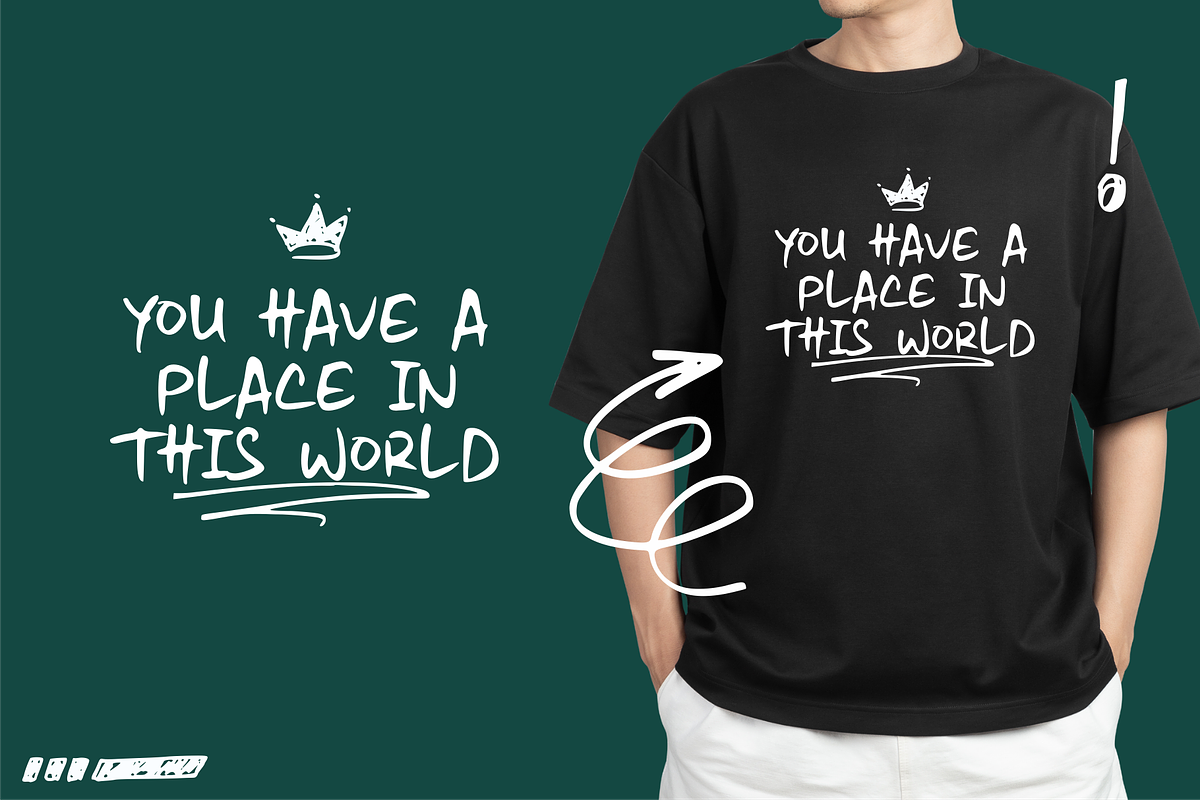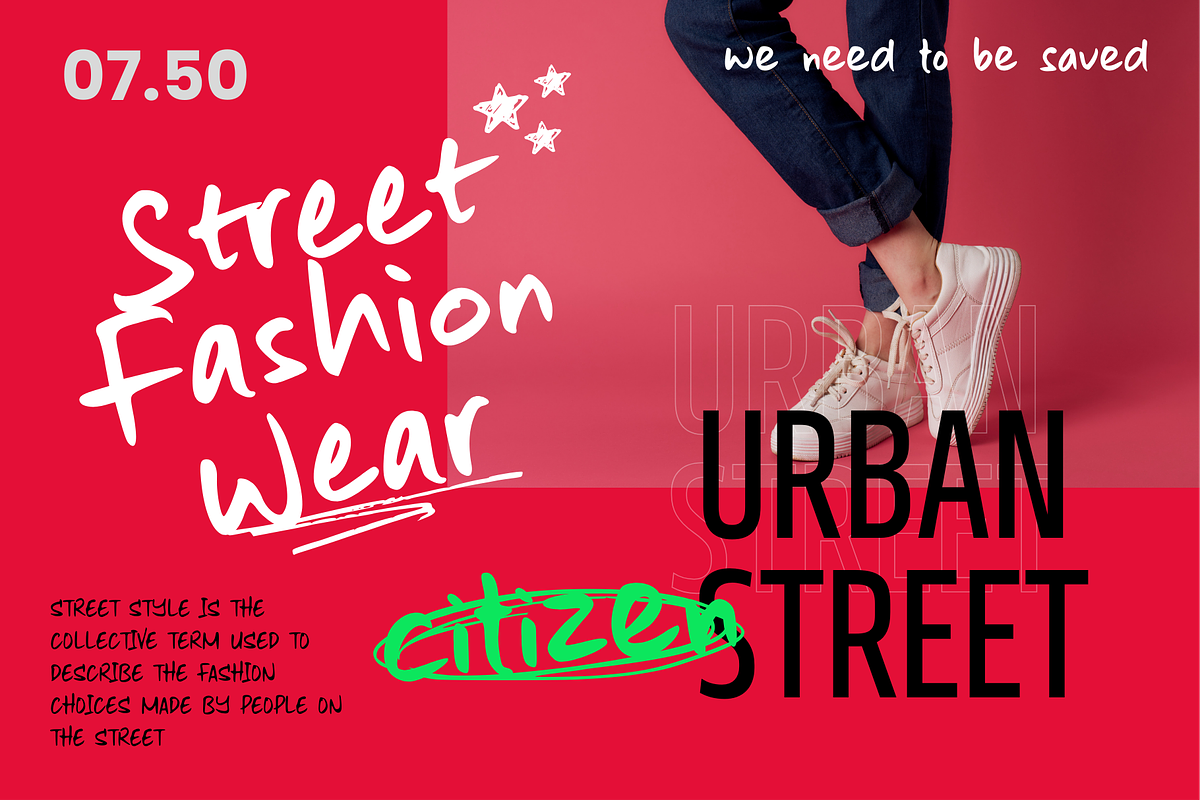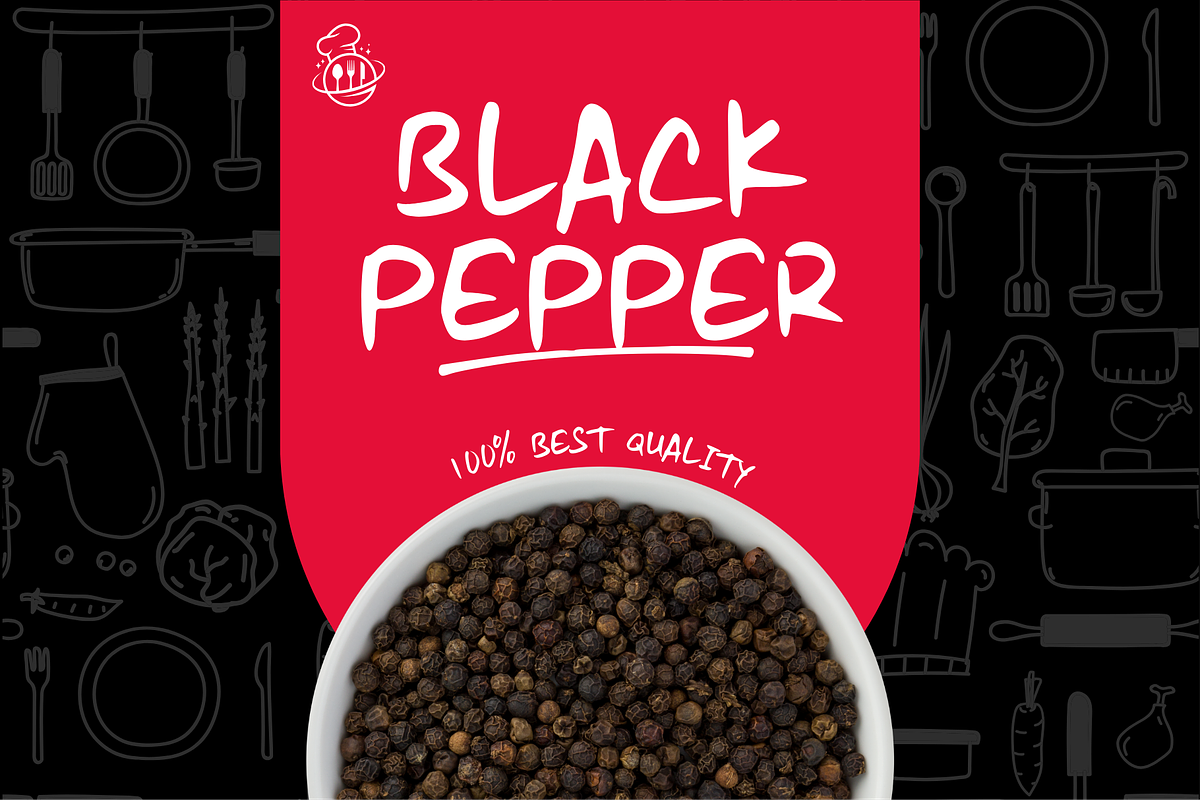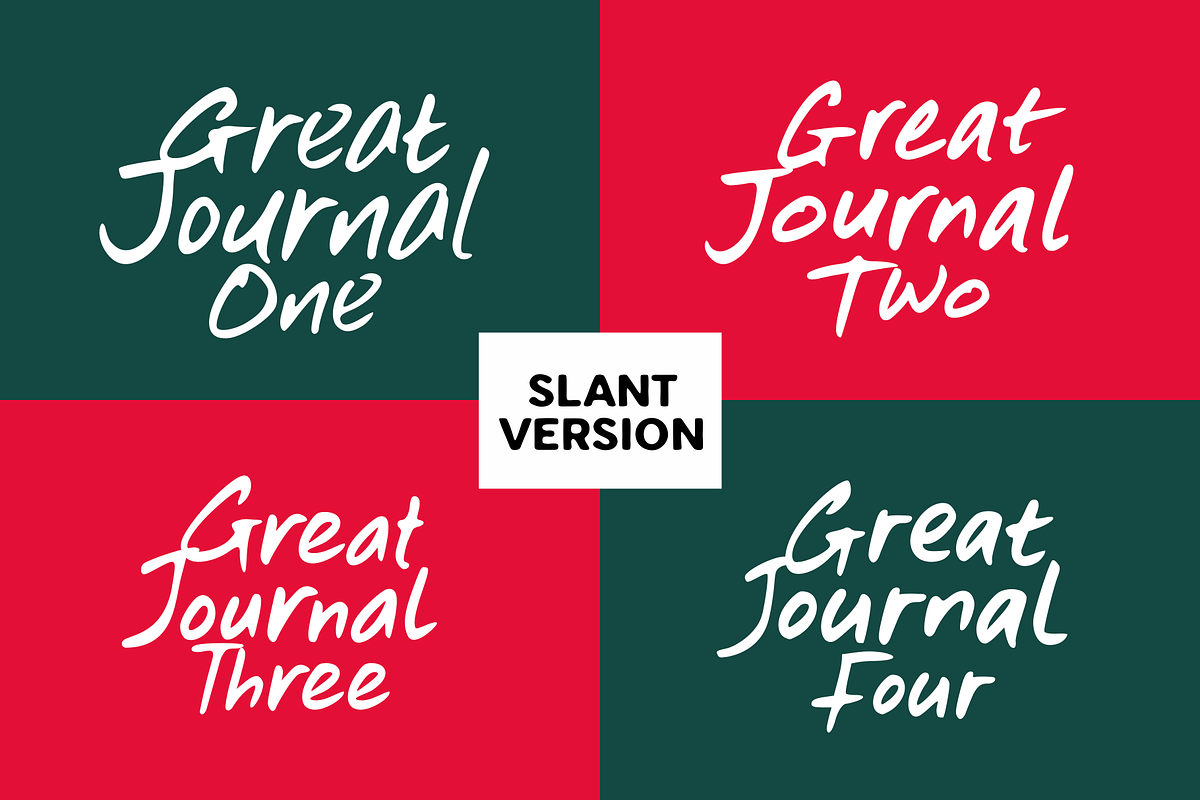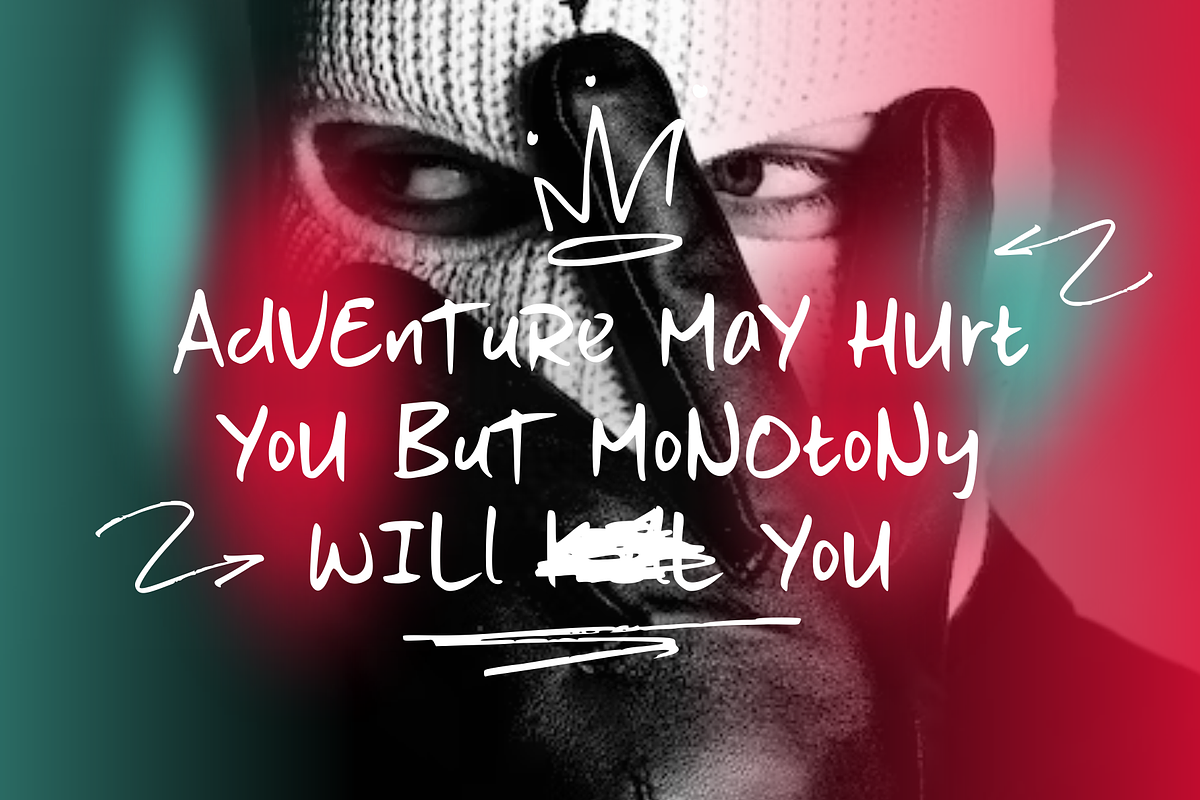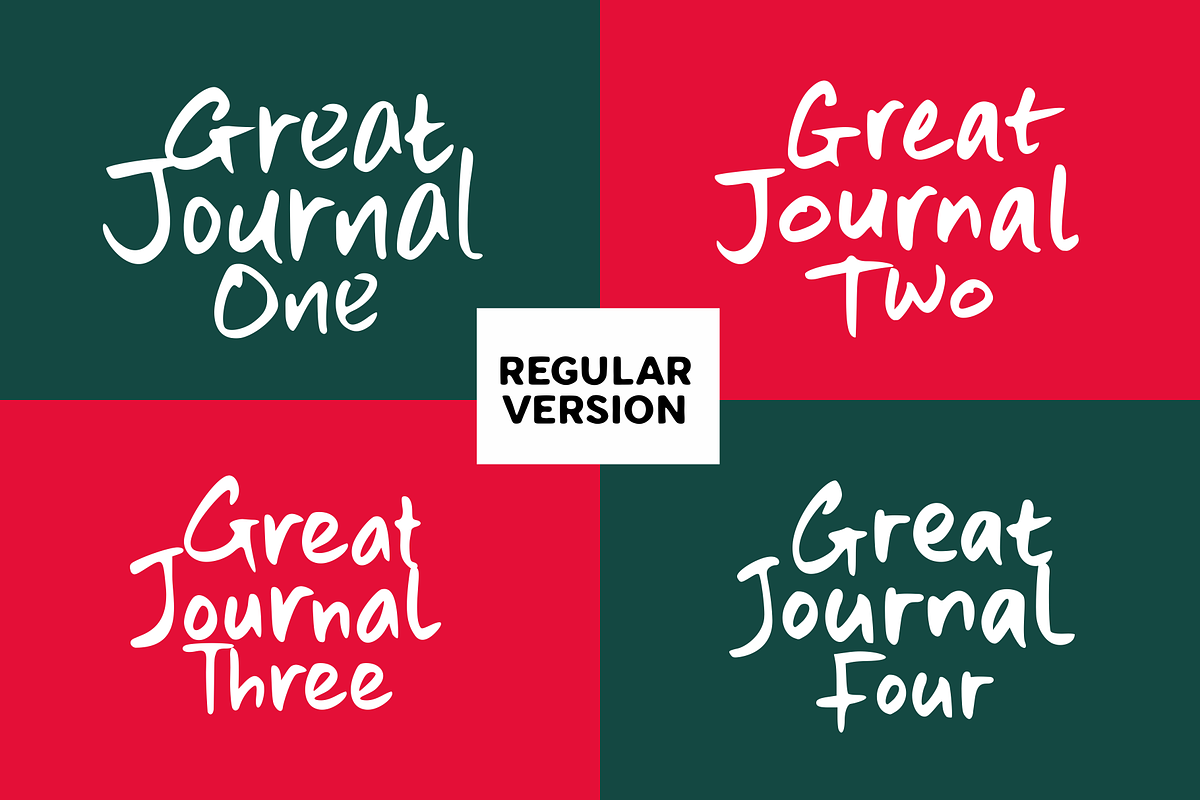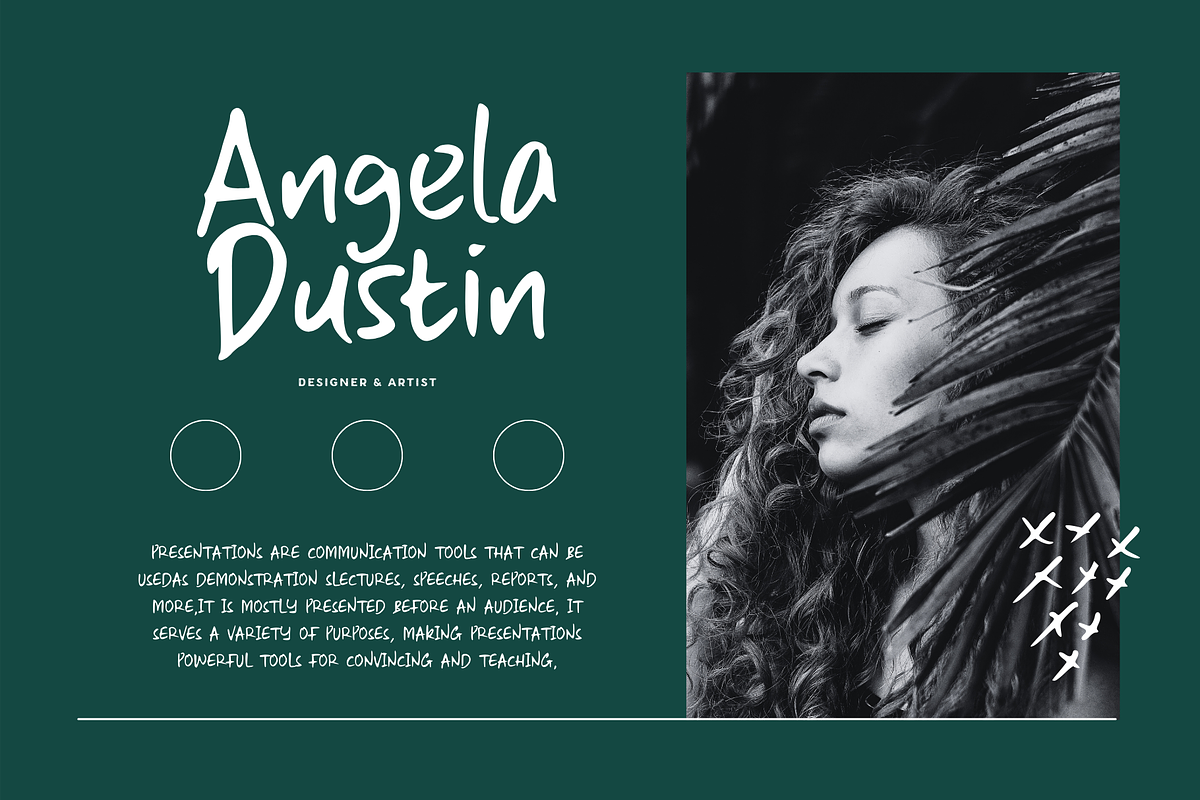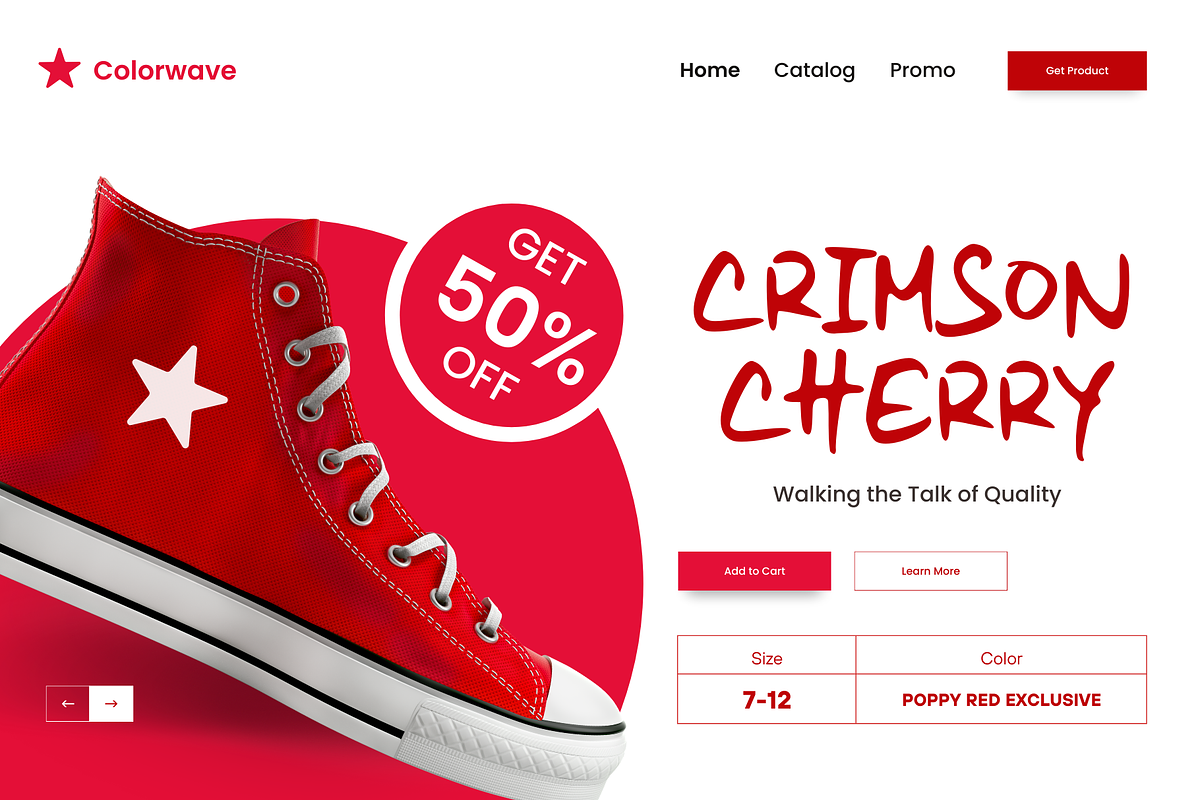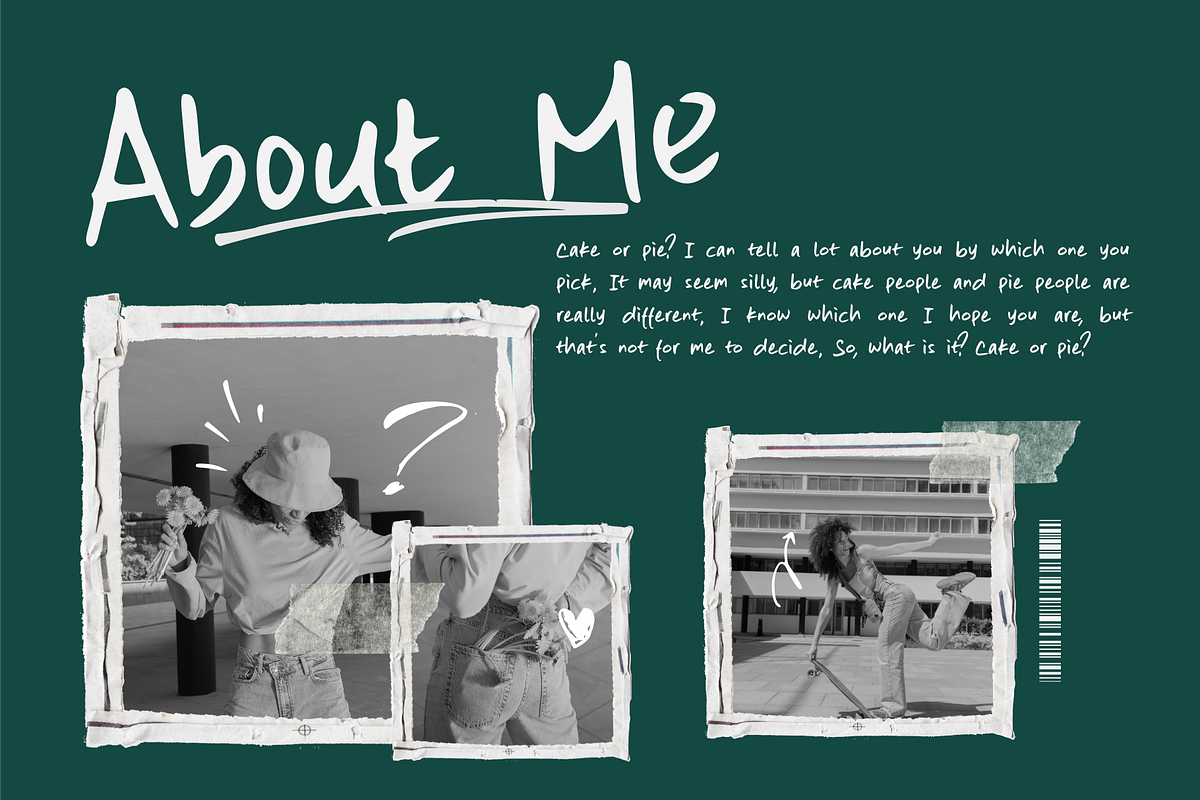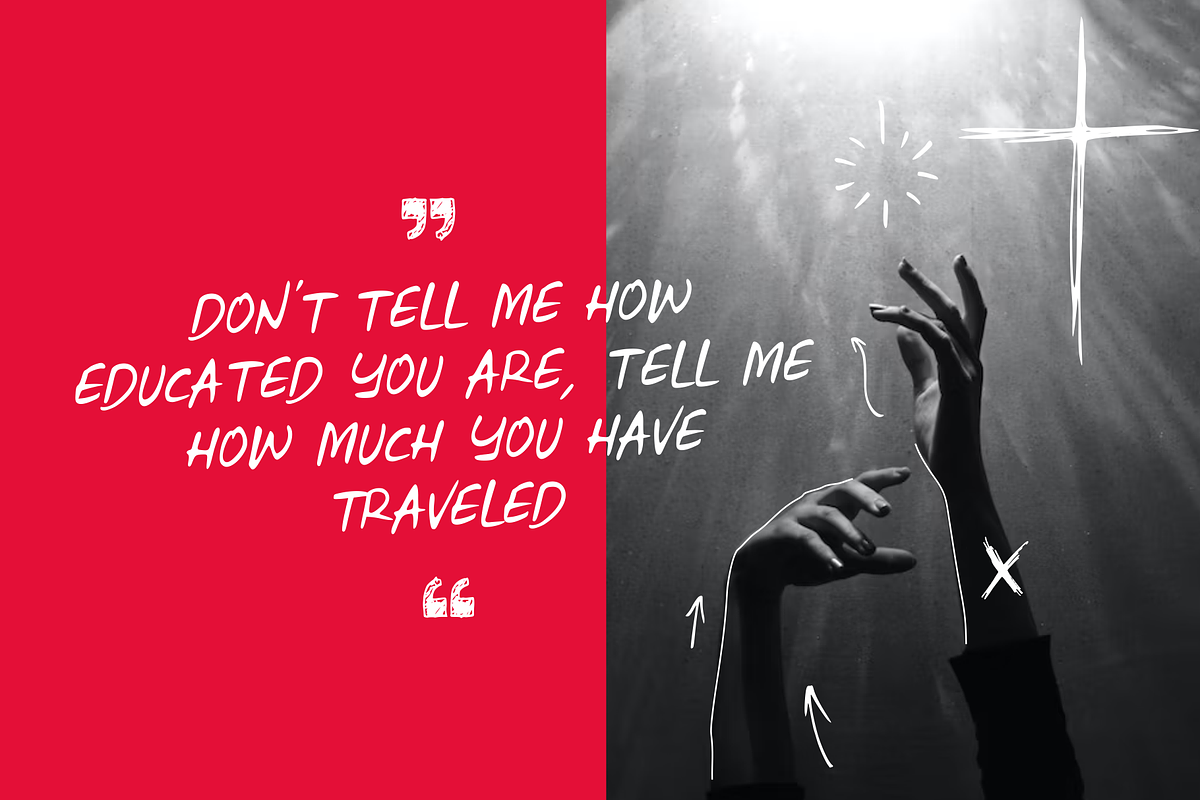
Great Journal - Natural Marker Font
"Meet 'Great Journal,' a natural marker font that brings the organic charm of handwritten notes to your designs. With its authentic strokes and rustic feel, this font captures the essence of genuine, handwritten content. Whether you're designing for journals, personal notes, or any project that requires a natural touch, 'Great Journal' infuses your work with an authentic and down-to-earth character."
- 4 Font: Great Journal One, Two, Three, Four
- 2 Style: Regular & Slant
- Multilingual, numerals, and punctuation